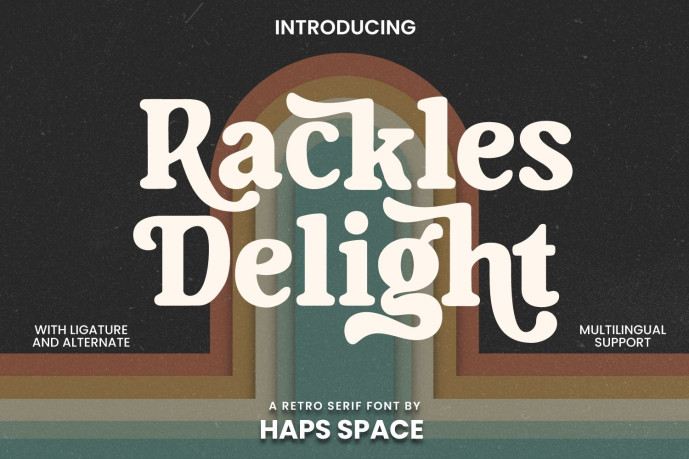
Rackles Delight Serif Font
Rackles Delight Serif Font is a bold retro serif typeface that brings a touch of nostalgia with a modern twist. Designed with playful curves, unique alternates, and stylish ligatures, this font captures the charm of vintage typography while staying versatile for today’s creative needs.
Perfect for branding, posters, packaging, logos, and editorial design, Rackles Delight gives your project a timeless retro feel that stands out. Whether you’re crafting groovy headlines, stylish social media graphics, or nostalgic merchandise, this typeface adds character and flair.
With multilingual support, alternates, and ligatures, Rackles Delight is not just a font—it’s a creative tool for designers who want to express personality and boldness in their work.
Bring back the retro vibes and let your designs shine with Rackles Delight!
• Unique Letterforms